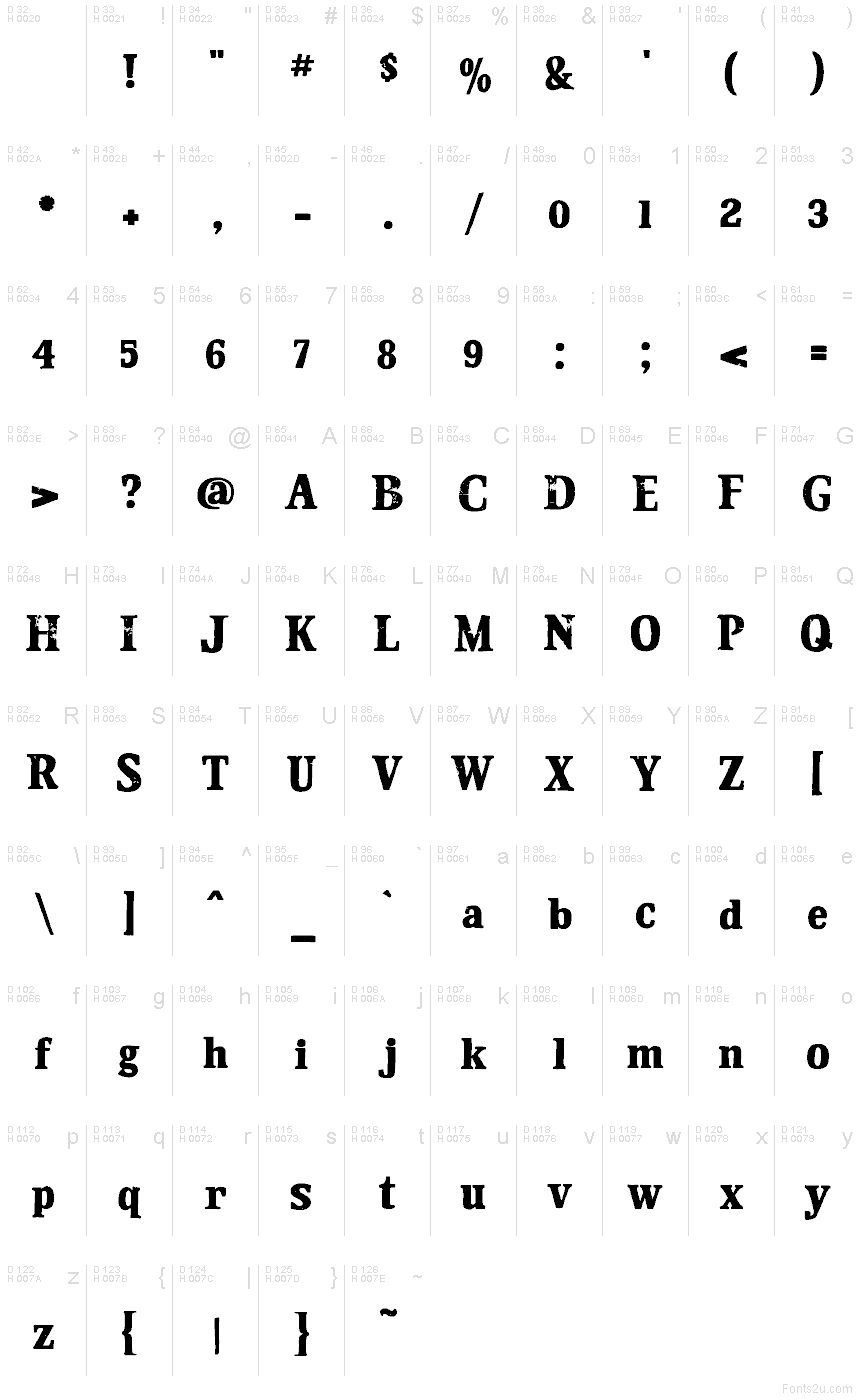
Diesel Crack
Diesel Crack font by Cat.B is a bold distorted display font that embraces a grunge texture and distressed appearance. Inspired by vintage aesthetic, the distressed font is creative, extremely rebellious and unrestrained. Each character brings a rugged style with an industrial feel to any medium or text its implemented in. Diesel Crack is free to integrate into all of your design projects.
Its unique bulky structure will be suitable for large headings and titles in posters, banners, signage, shirts and other apparel items. Create unconventional logos for bands and music albums in addition to magazines and books titles/covers. Further possibilities include film cover designs, flyers, social media posts…